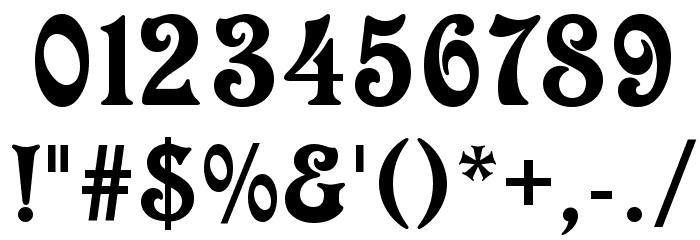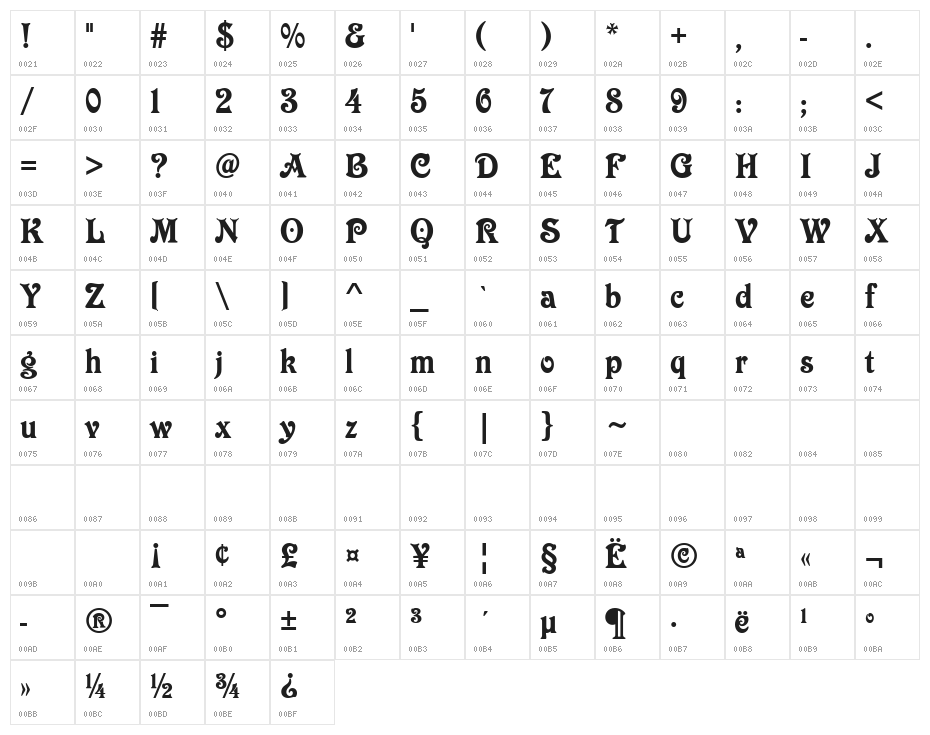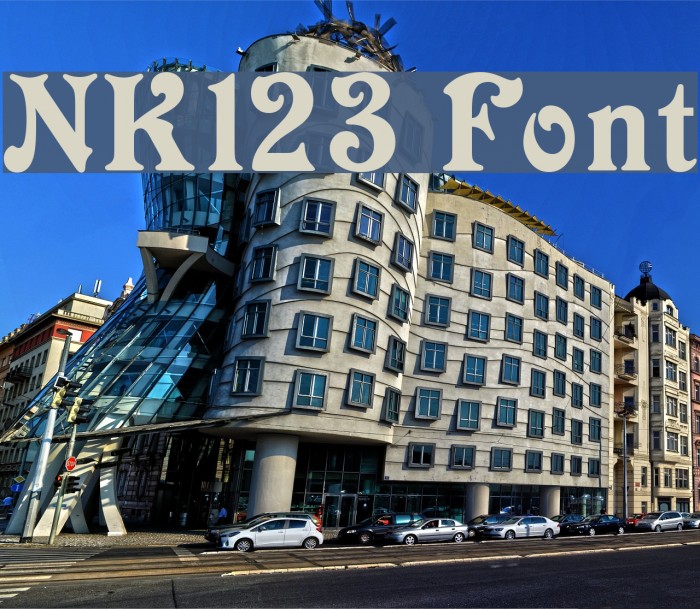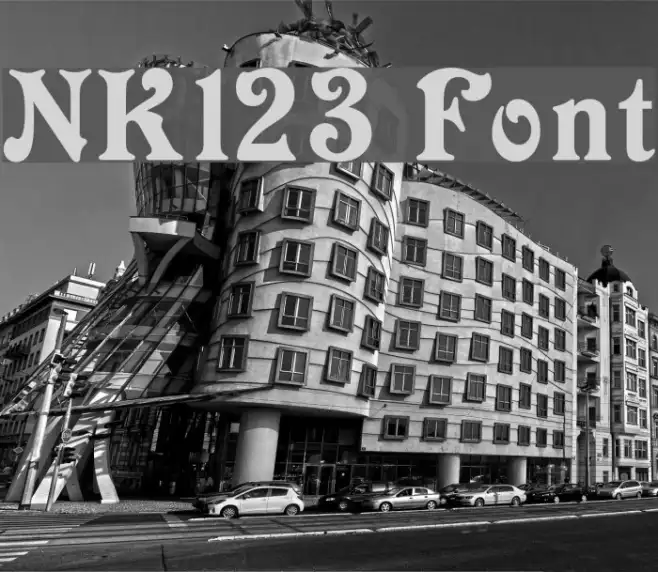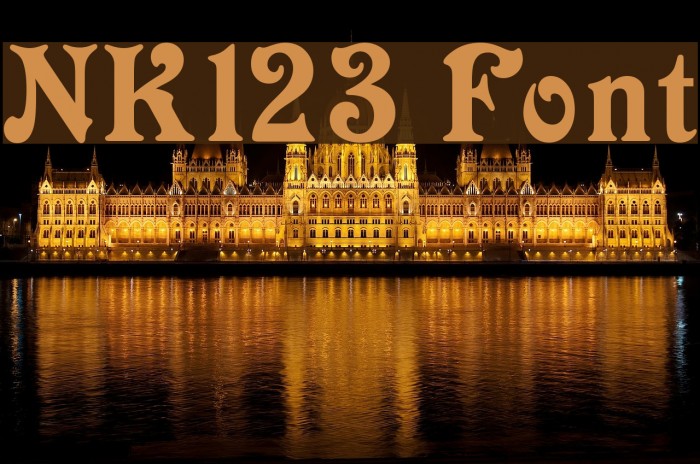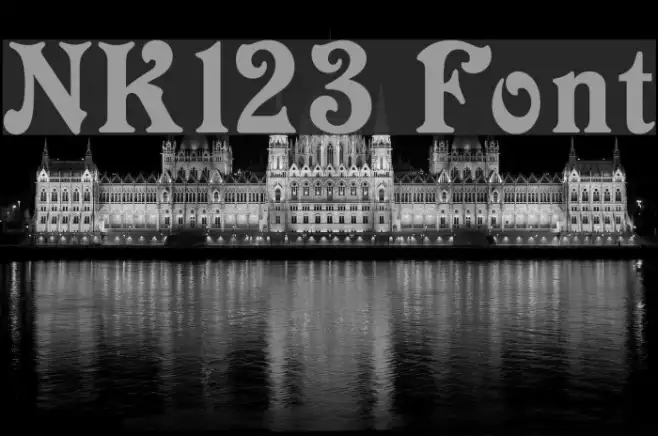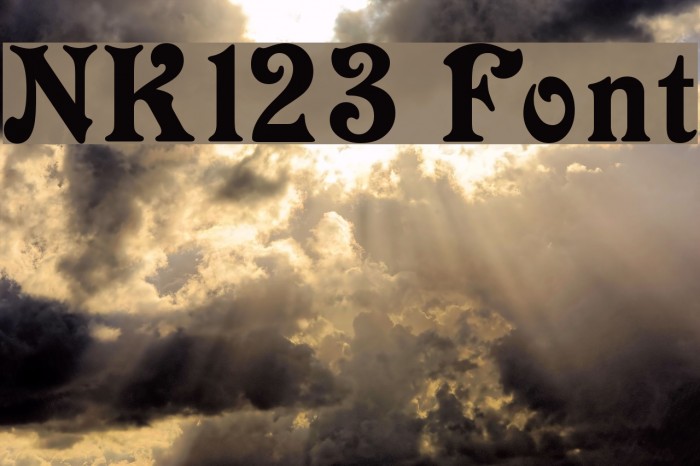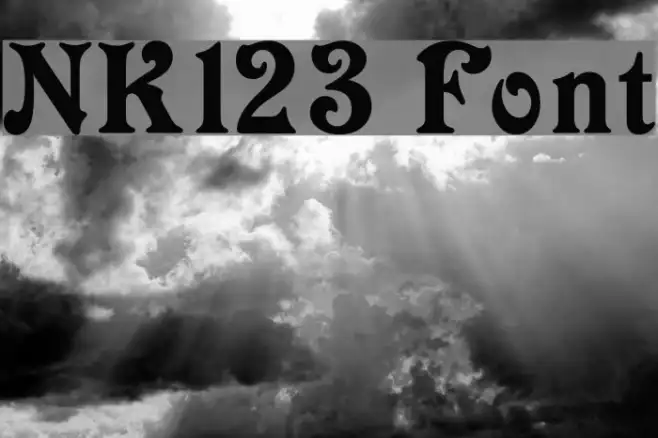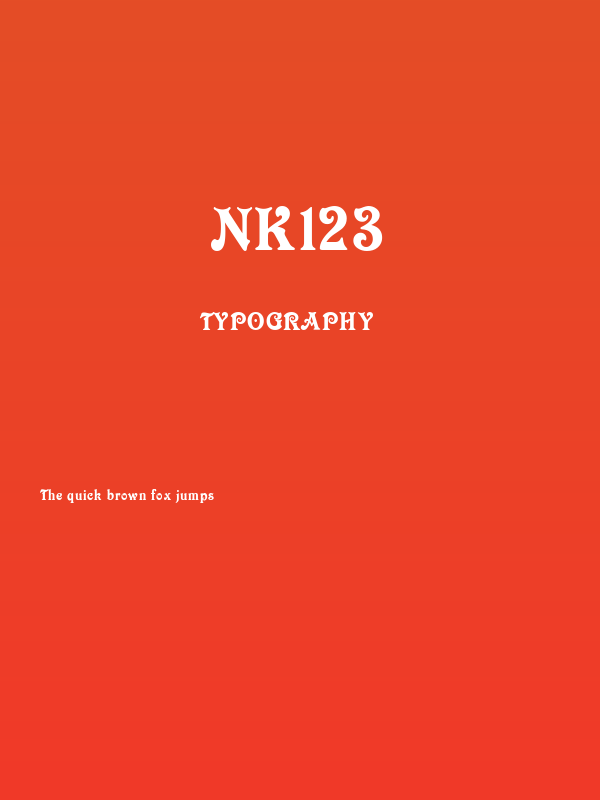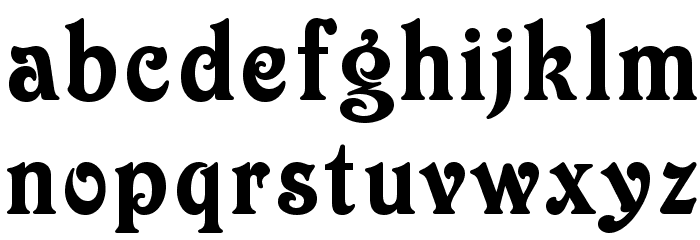
NK123 Font
NK123 Description
This font features a bold and decorative style with a distinct vintage flair. The characters are adorned with intricate serifs and flourishes, giving them a unique and ornate appearance. The uppercase letters are particularly elaborate, with curved and pointed elements that add a sense of elegance and drama. The lowercase letters maintain the decorative theme, with consistent stroke thickness and playful curves. Numbers and special characters are equally stylized, ensuring a cohesive look across all elements. The overall design is eye-catching and suitable for projects that require a touch of sophistication and historical charm.
| Proposed Projects | Ideal for vintage-themed posters, book covers, branding, and event invitations. |